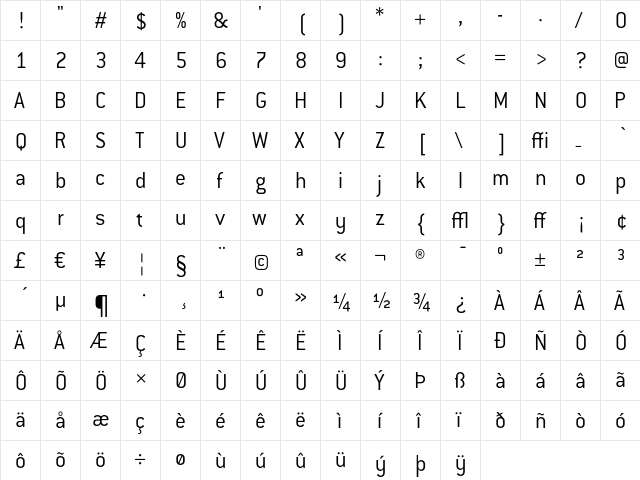
ConduitITC Light
Design Context for ConduitITC Typeface
ConduitITC is a composed and adaptable typeface that performs quietly and consistently across a wide range of design contexts. Its slender proportions lend an understated elegance to any composition. Its narrow stance lets it pack a punch even in space-constrained designs.
Pro Tip: Use ConduitITC in both headline and body roles to test its range before committing to a single application.